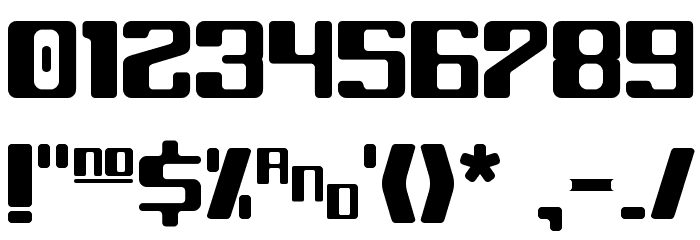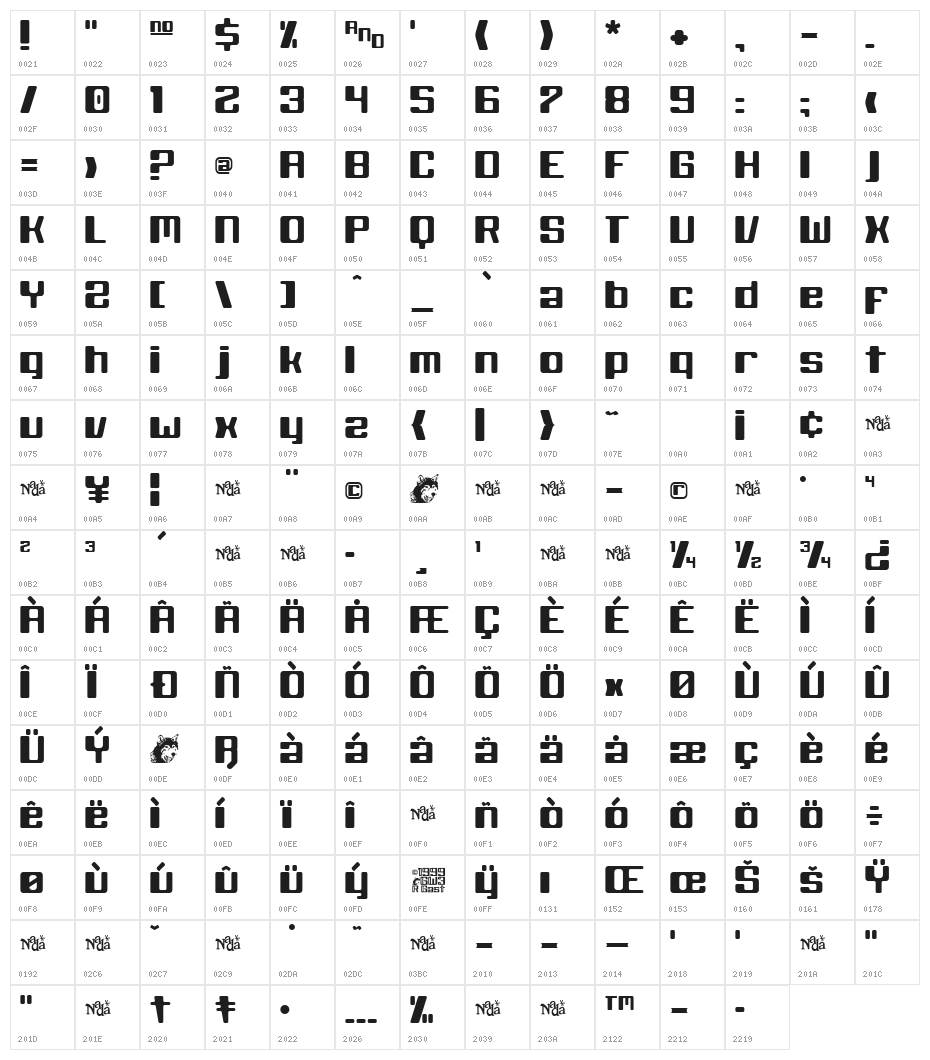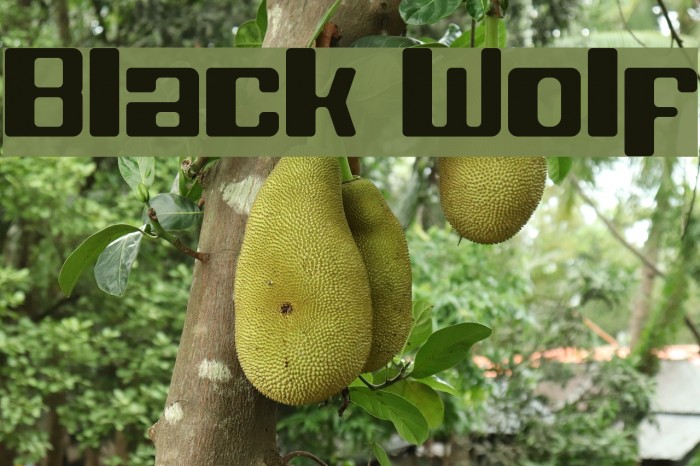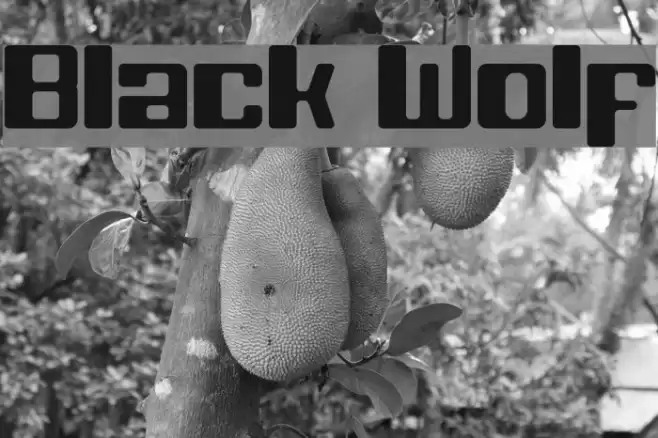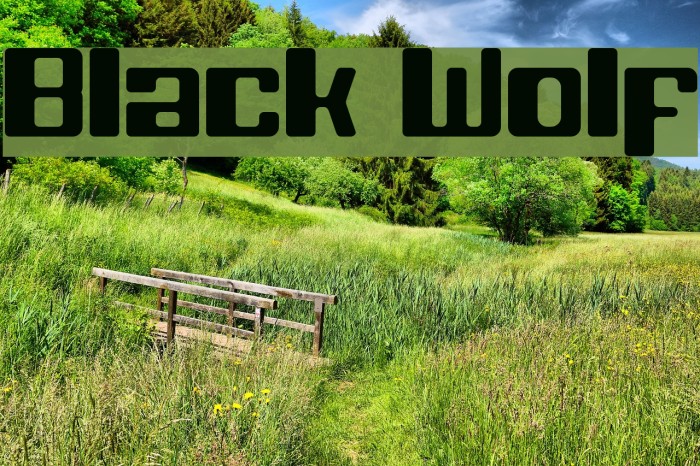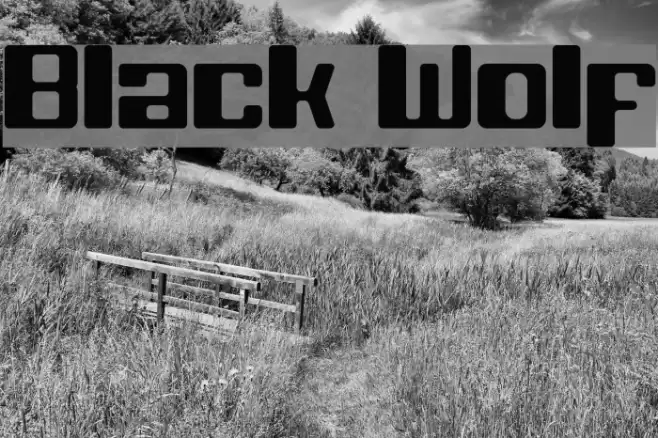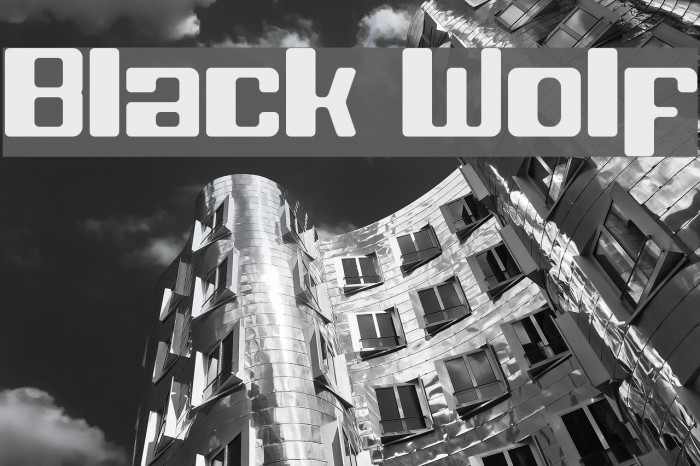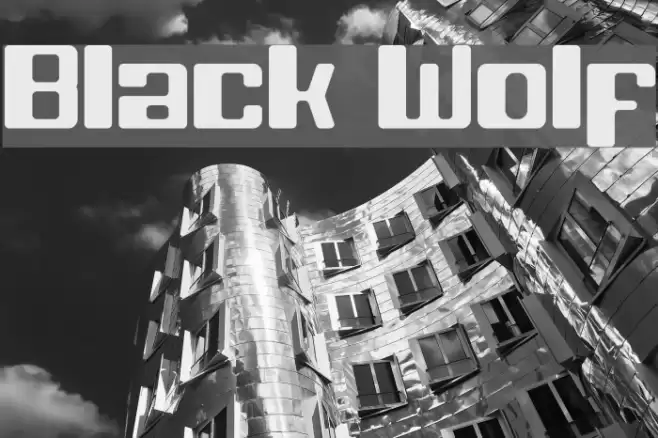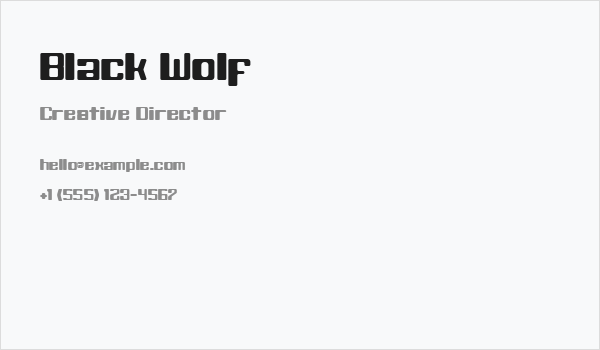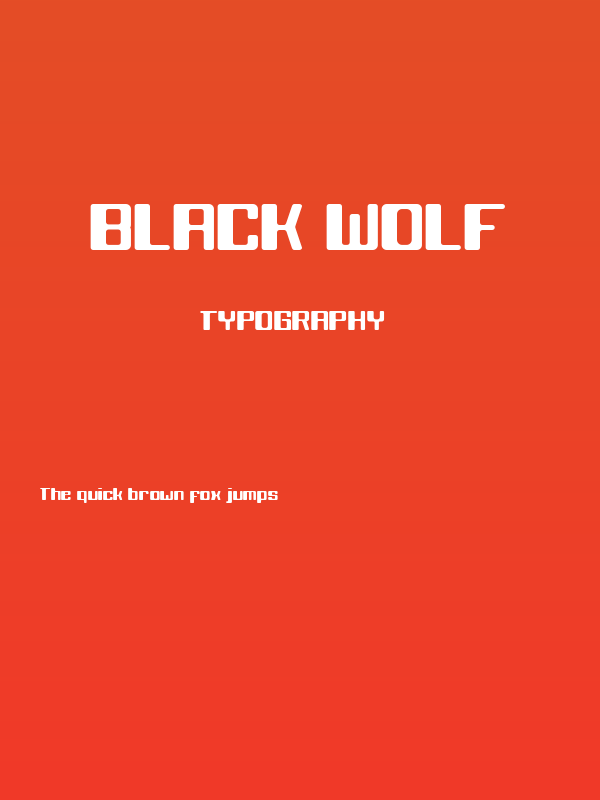
Black Wolf Font
Black Wolf Description
This font features a bold and robust design with a modern, geometric aesthetic. The characters are constructed with thick, uniform strokes that create a strong visual impact. The uppercase and lowercase letters maintain a consistent style, with rounded edges and a block-like structure that enhances readability. The numerals and special characters follow the same design principles, ensuring a cohesive look across all elements. This font's unique style is both eye-catching and versatile, making it suitable for a variety of design applications.
| Proposed Projects | Ideal for branding, posters, headlines, and digital media where a strong, modern presence is desired. |